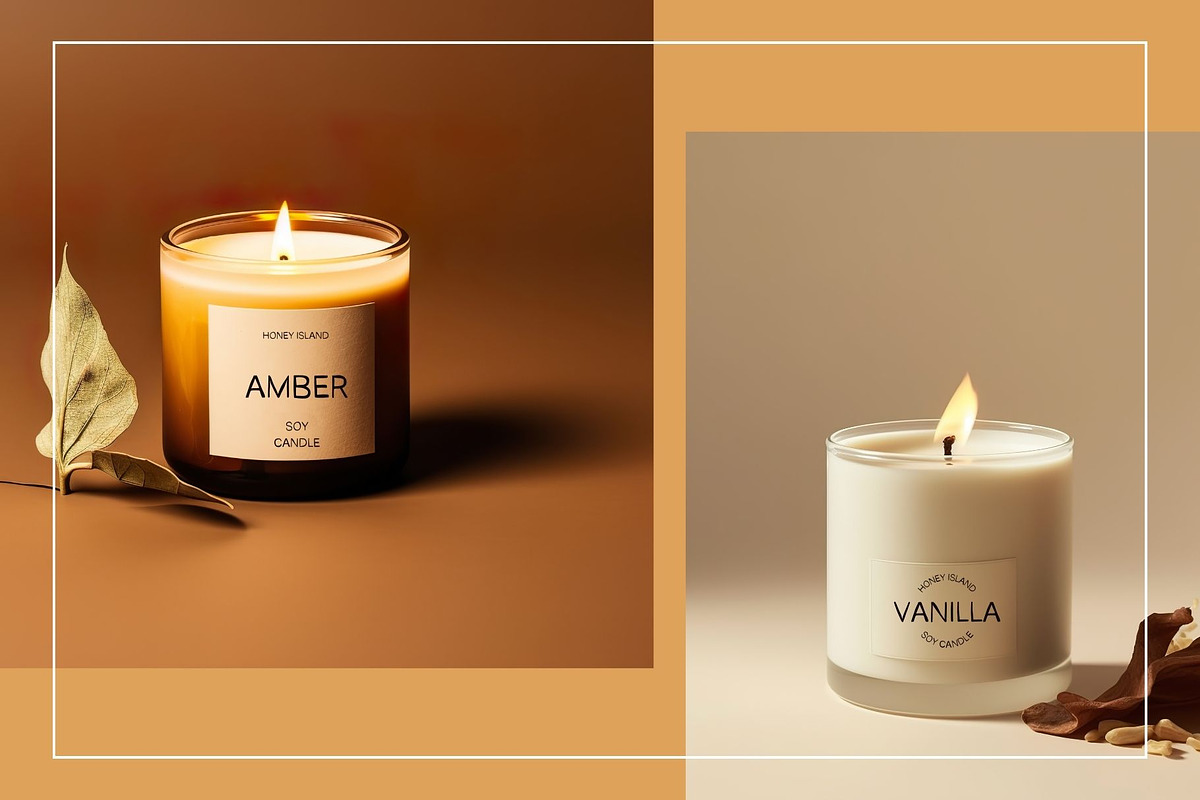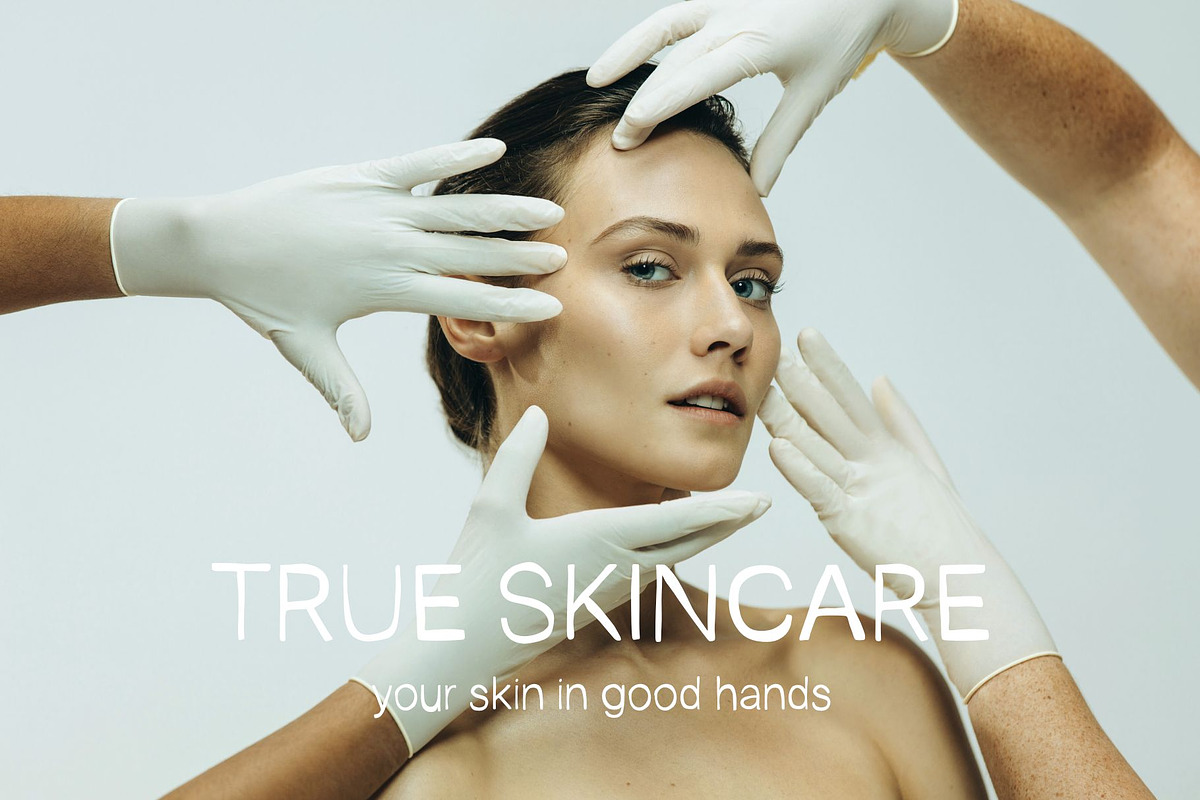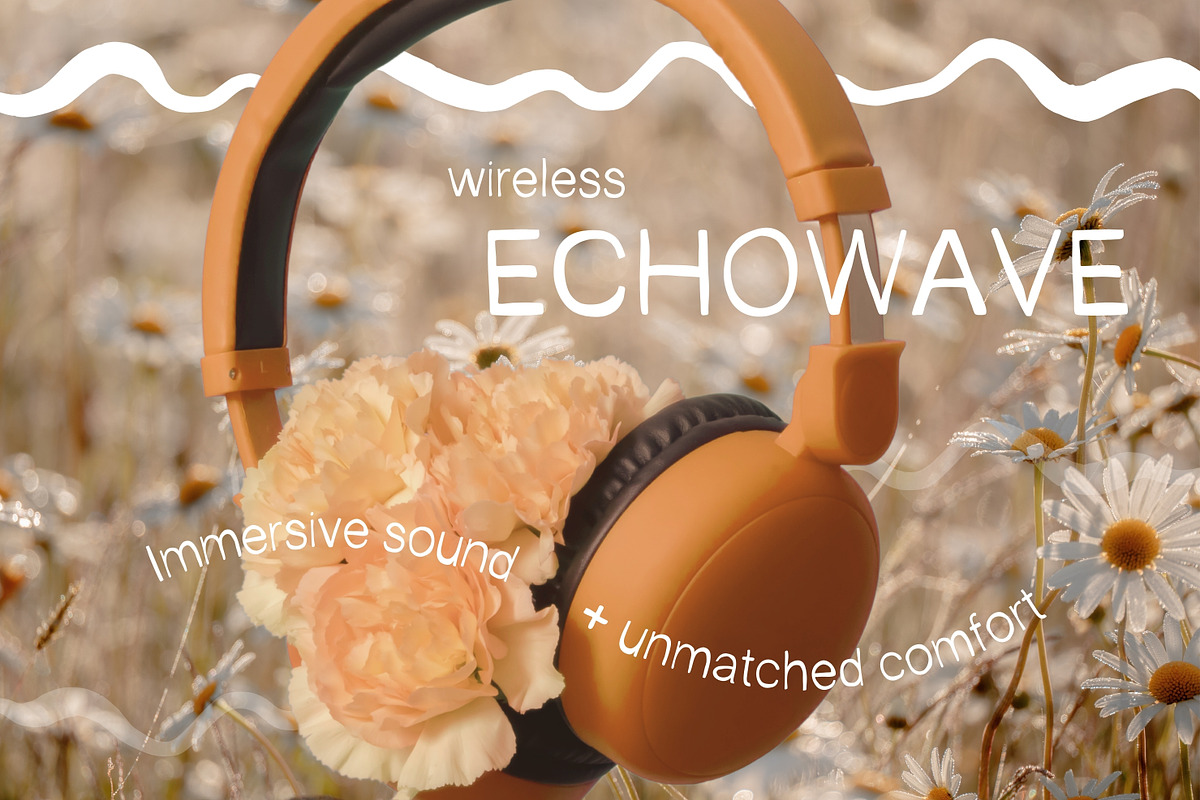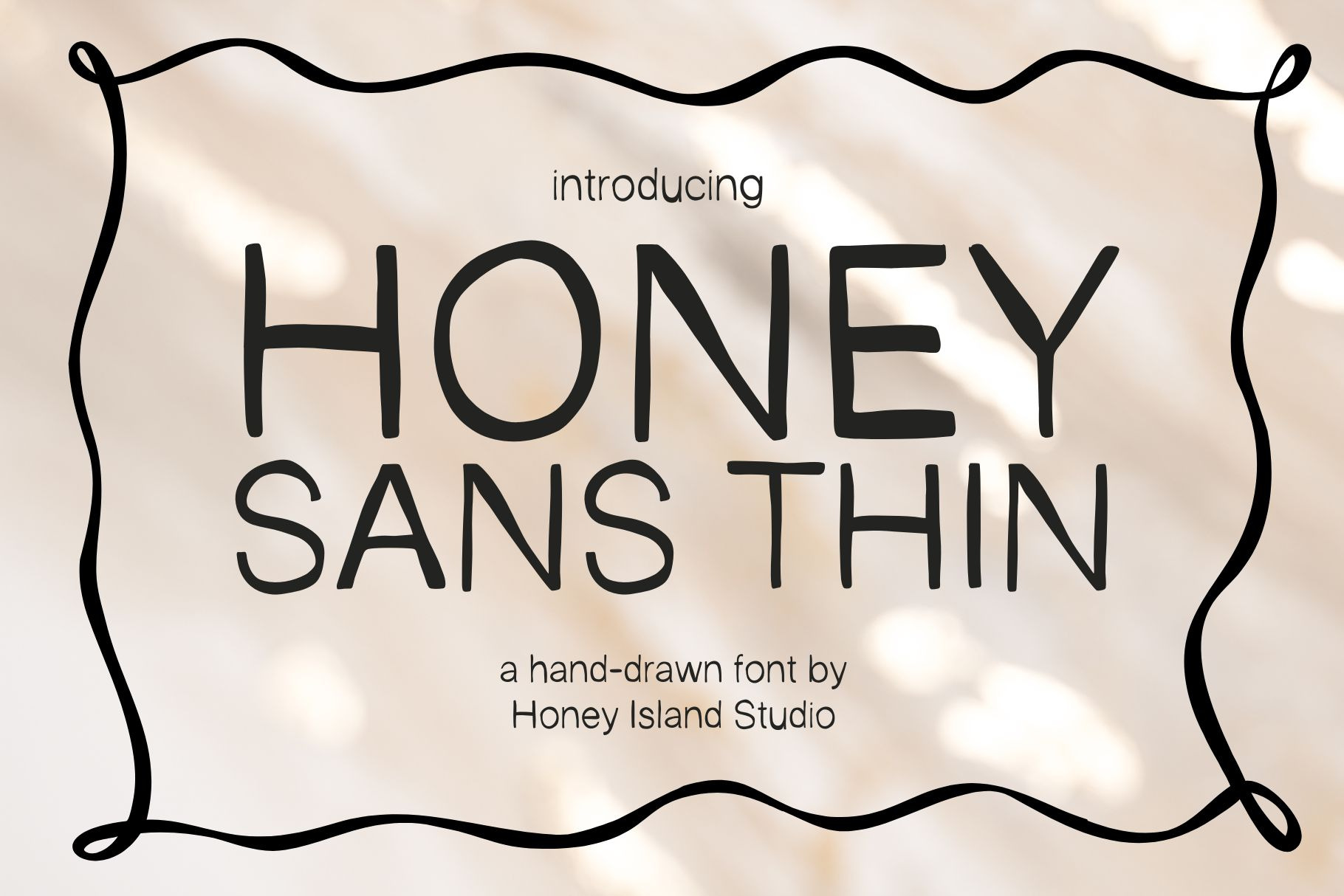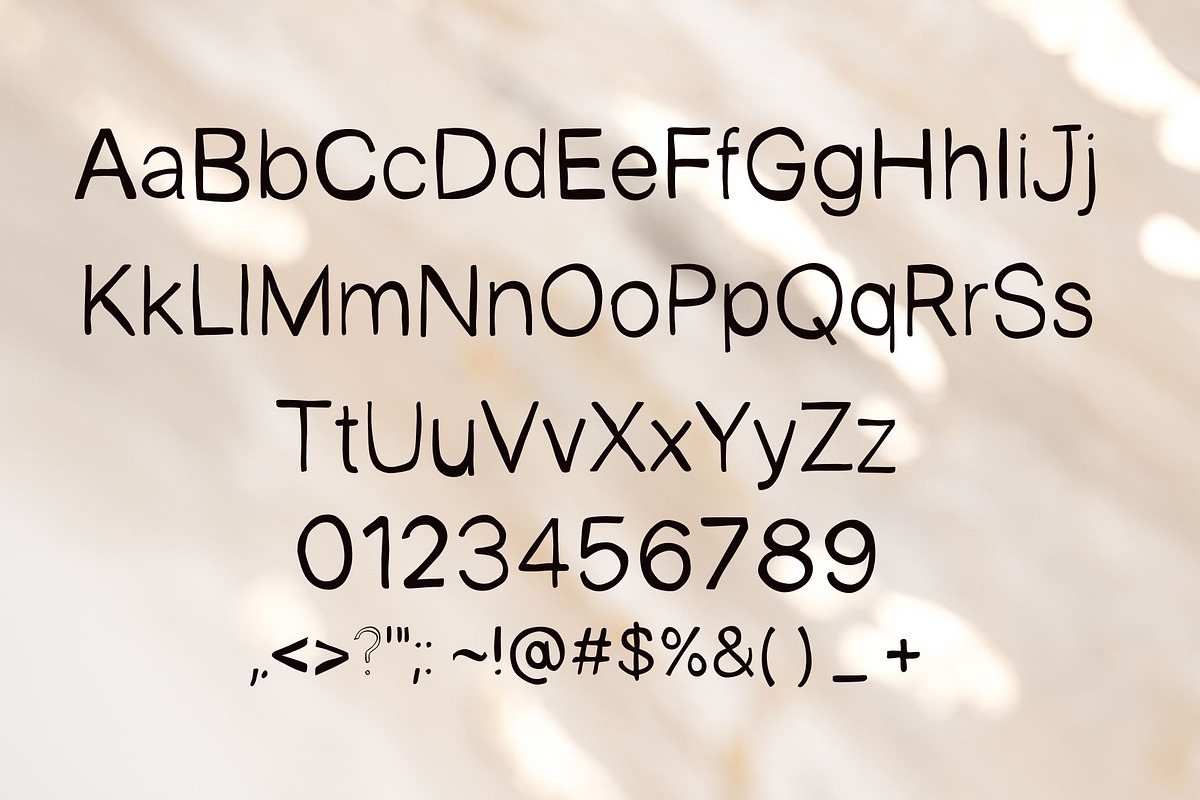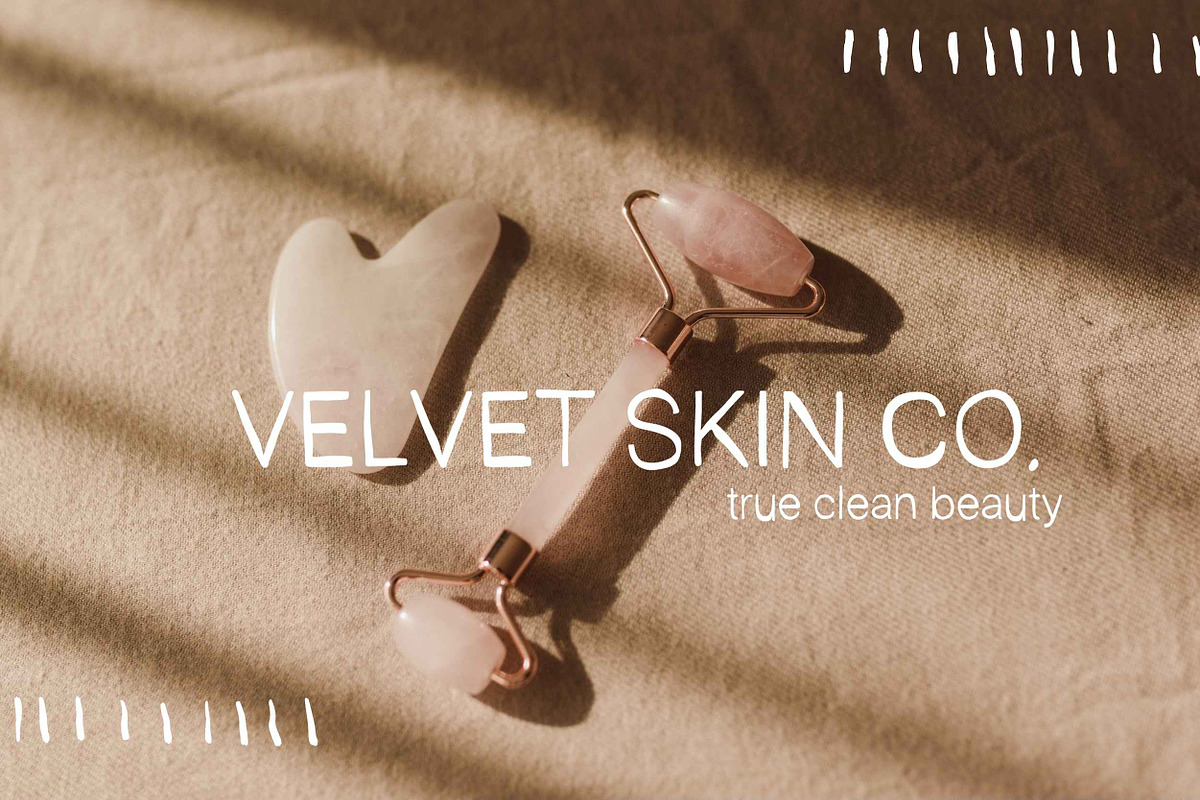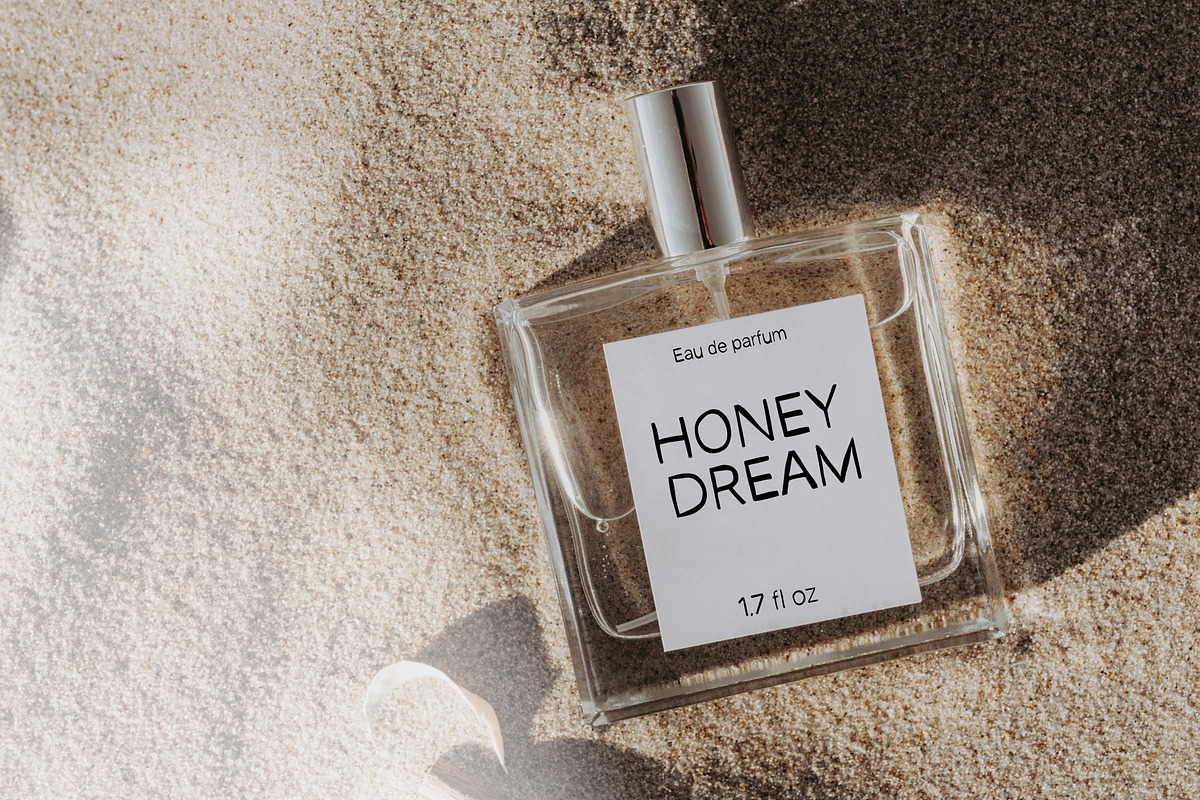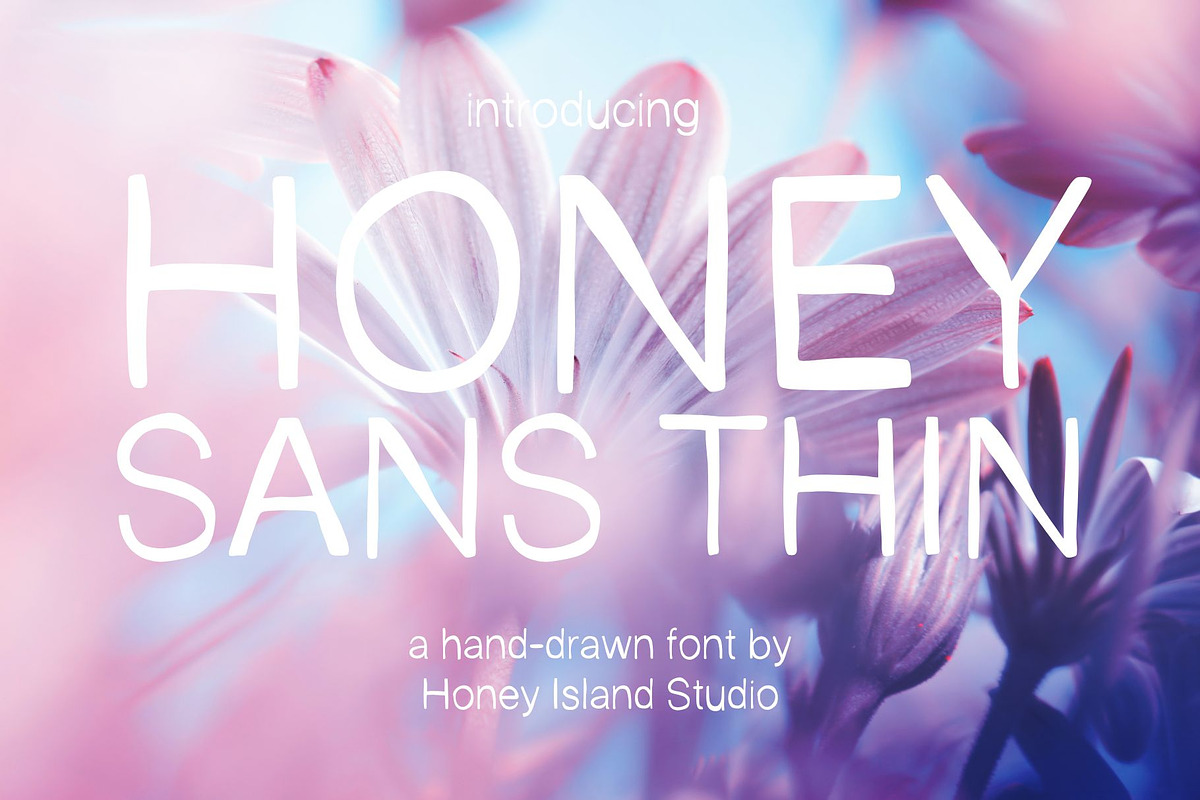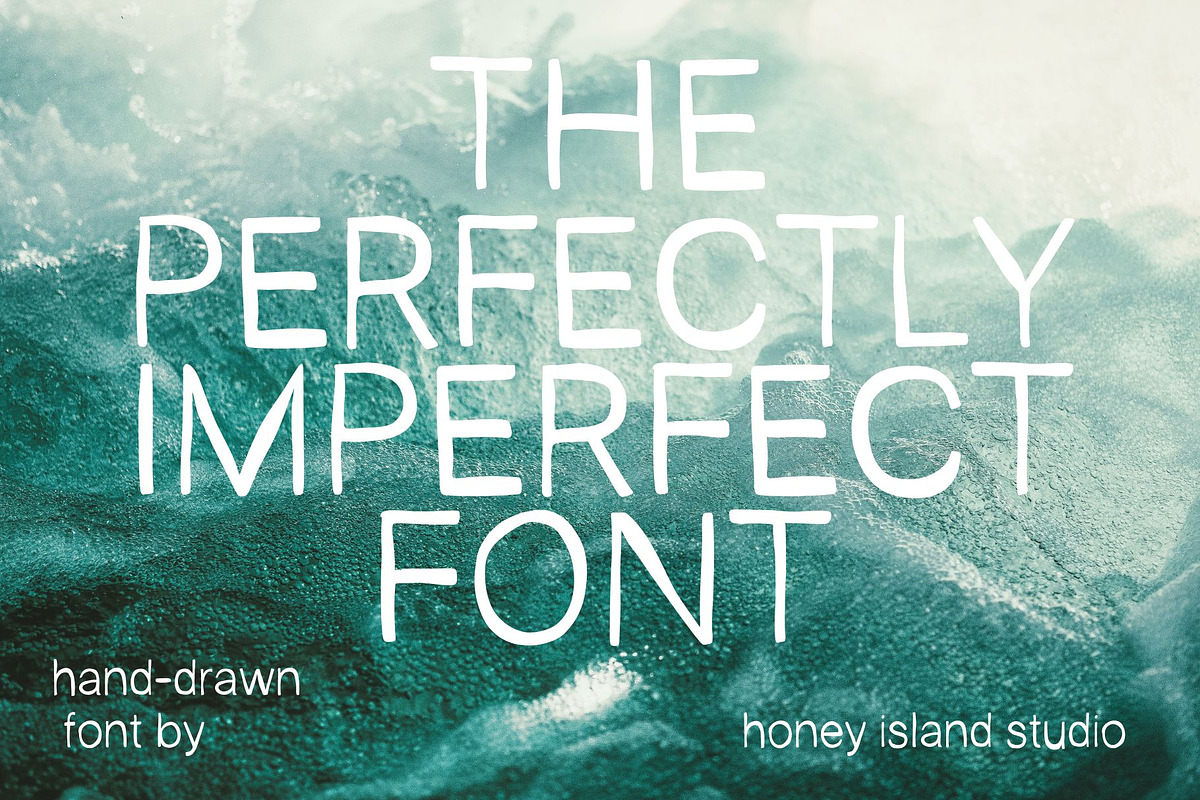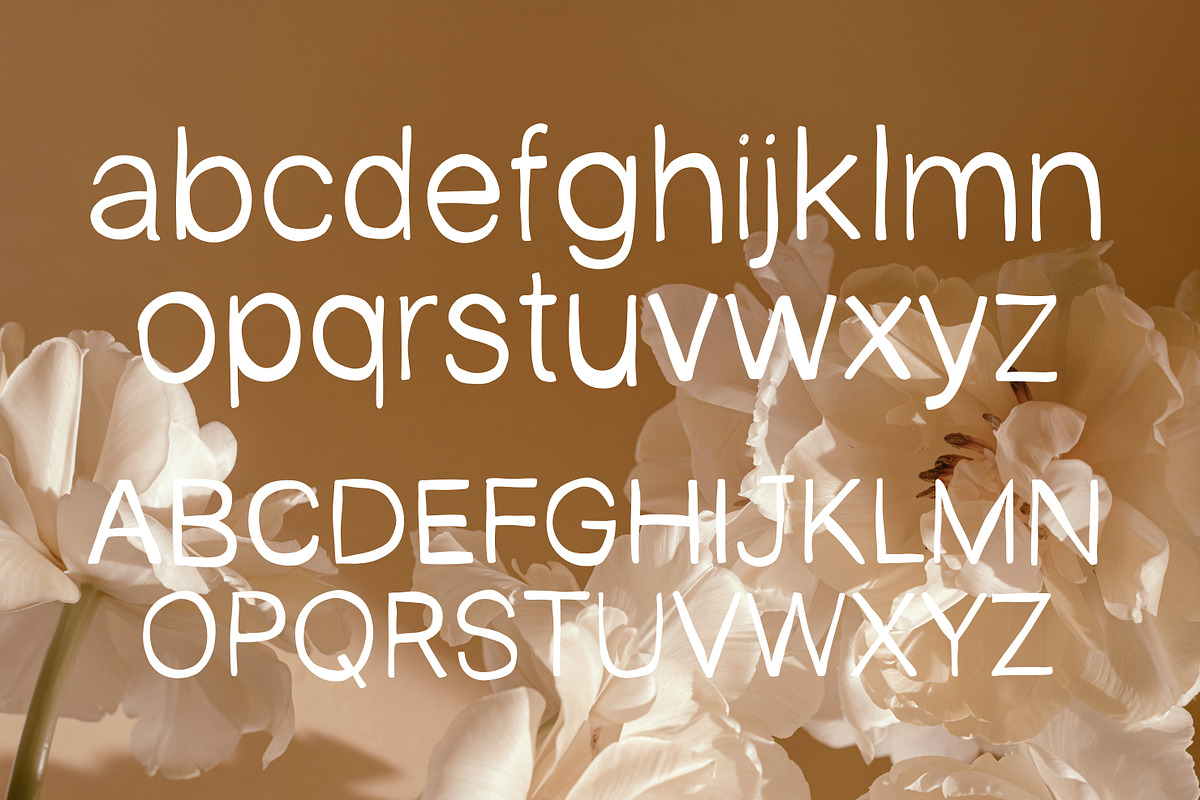
Honey Sans Hand-drawn Thin Font
Say hello to Honey Sans Thin – a sweet and subtle hand-drawn sans serif that adds just the right touch of personality to your designs. With smooth, organic lines and a breezy, minimalist style, this font feels both playful and polished.
Perfect for everything from branding and packaging to invitations and social posts, Honey Sans Thin brings a cozy, handcrafted feel without sacrificing clarity. It’s light, lovely, and endlessly versatile – the kind of font that quietly steals the show.